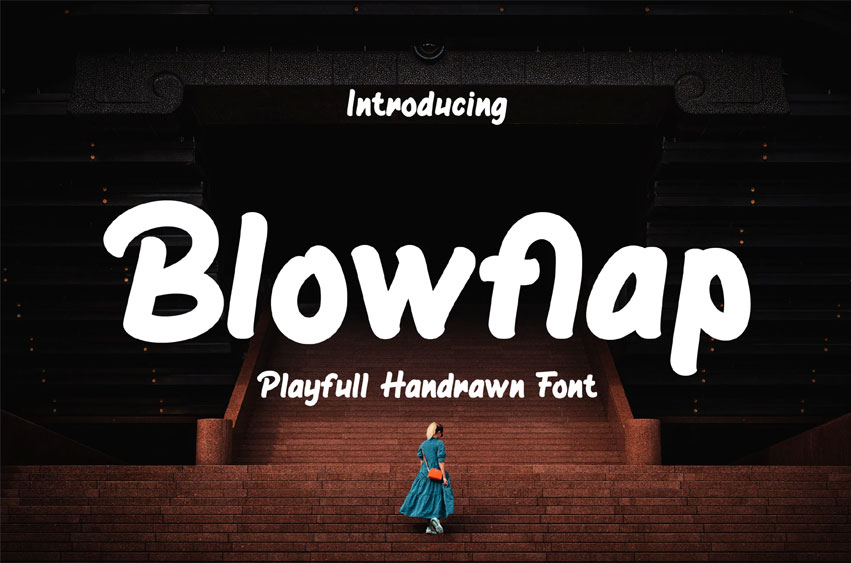
Blowflap Font is a handwritten, playful font that brings a burst of fun and personality to your designs. With its loose strokes, quirky shapes, and casual hand-drawn feel, Blowflap is perfect for projects that want to feel lighthearted, creative, and full of character. Great for kids’ branding, cheerful packaging, social media graphics, and anything fun, this font adds a friendly, spontaneous vibe to every word. With alternates and bouncy ligatures, Blowflap lets your designs speak with a smile.